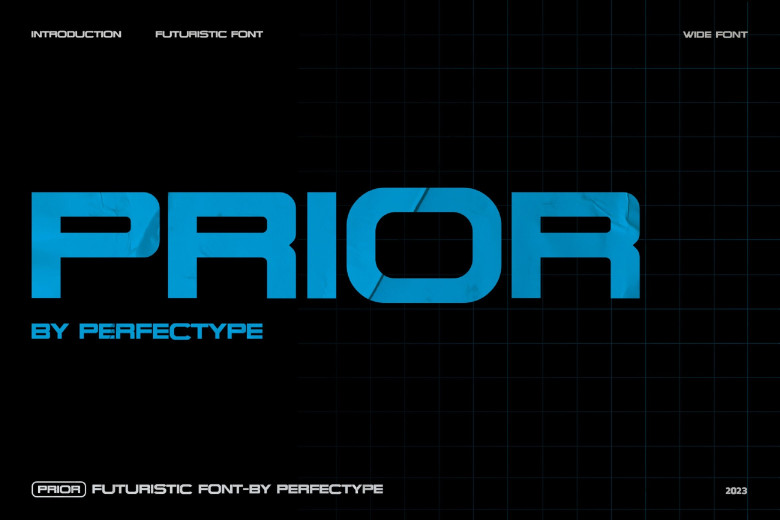
Prior Font
Prior Font stands out with its distinctive form and modern writing style that makes designing gorgeous typographic designs quickly easy! In minutes you can design stunning typographic works such as branding and web designs, creative projects, prints and quotes, logotypes, bridal invitations, romantic card designs packaging, label designs spelling of names, packaging, label designs as well as many other applications! Bring your most original ideas to life using Prior Font’s help!
Prior Sans Serif Font